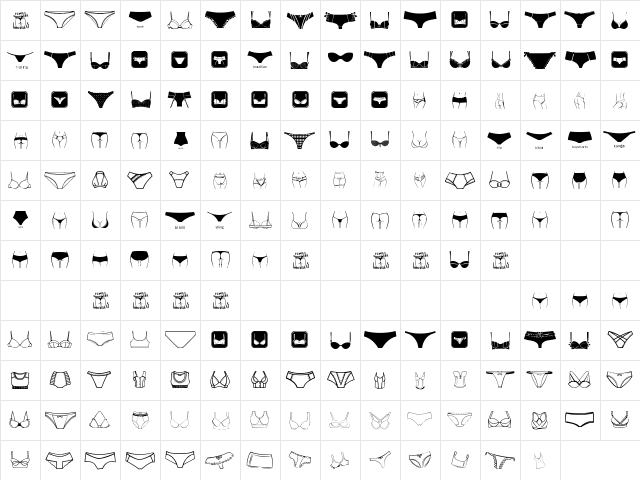
Female Underwear Regular Font Preview
Female Underwear Regular
Female Underwear Regular Font Details
| Designer | Woodcutter Manero |
Design Context for Female Underwear Typeface
Female Underwear is a composed and adaptable typeface that performs quietly and consistently across a wide range of design contexts.